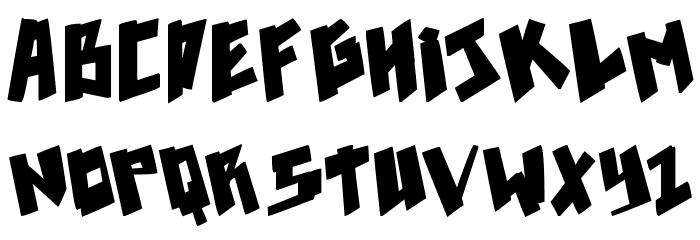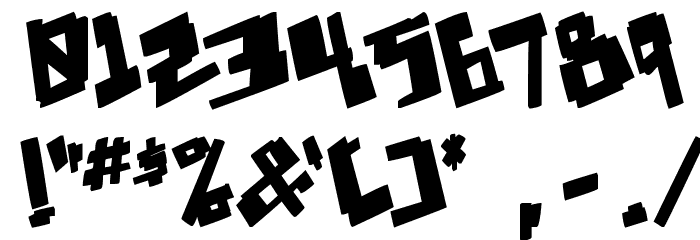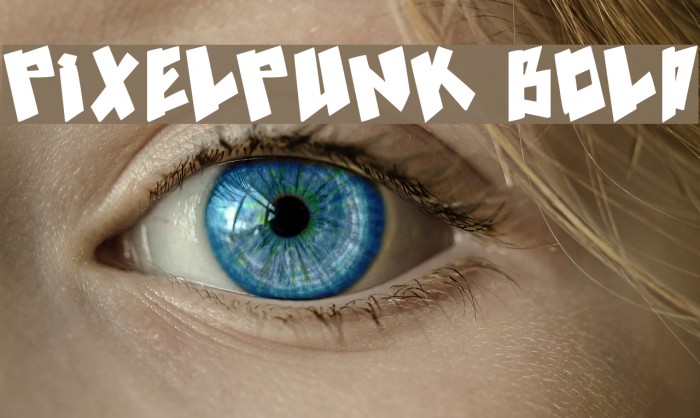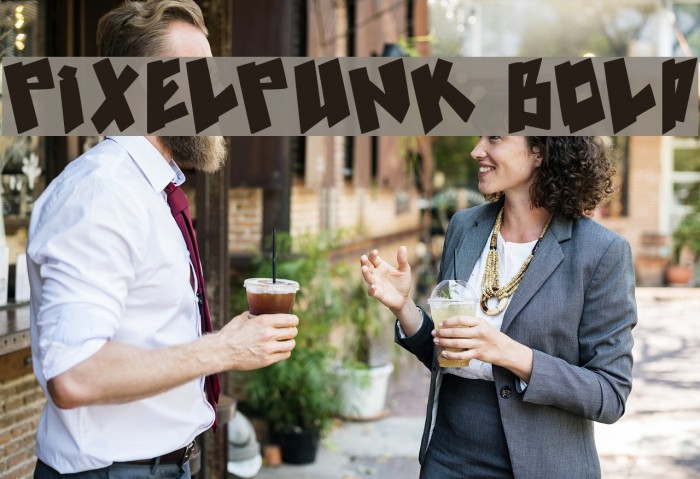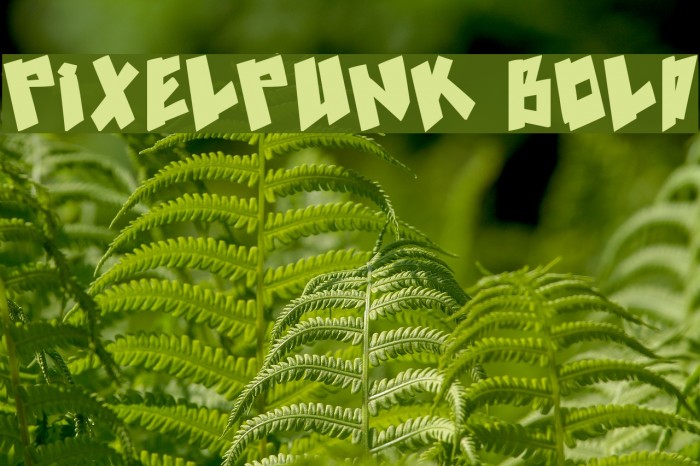
pixelpunk Bold Font
This font features a bold and edgy design with a distinctly angular and geometric style. The characters are constructed with sharp, jagged edges and a blocky appearance, giving it a modern and rebellious feel. The uppercase and lowercase letters maintain a consistent style, with exaggerated angles and a sense of movement. Numbers and special characters follow the same aesthetic, ensuring a cohesive look across all glyphs. This font is ideal for projects that require a strong visual impact and a contemporary, urban vibe.
A bold, angular font with a modern, edgy style.
- Proposed Projects: Perfect for video game titles, music album covers, streetwear branding, and edgy poster designs.